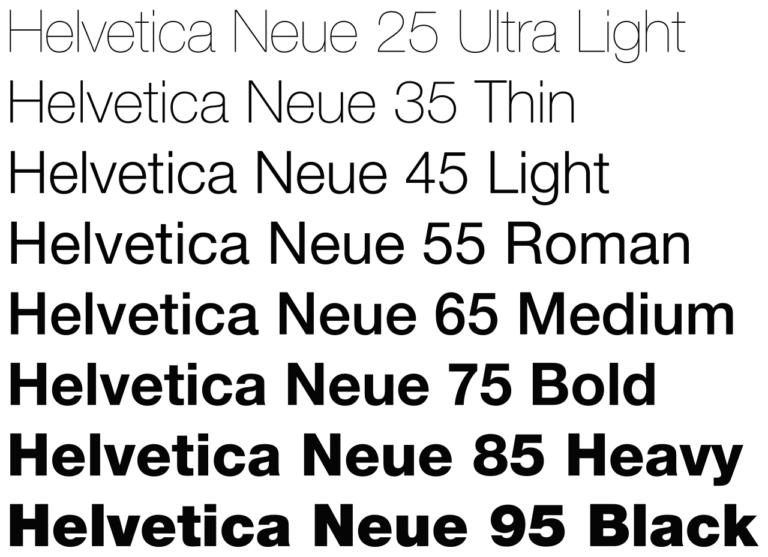
Helvetica Neue Font Family - Helvetica neue font family designed by unknown designer has a total of 16 different styles. Helvetica neue regular is the perfect font for all your fun designs. Helvetica font family created by kurt lorenz.
Helvetica neue font family designed by unknown designer has a total of 16 different styles. Helvetica font family created by kurt lorenz. Helvetica neue regular is the perfect font for all your fun designs.
Helvetica neue regular is the perfect font for all your fun designs. Helvetica neue font family designed by unknown designer has a total of 16 different styles. Helvetica font family created by kurt lorenz.
Helvetica font family created by kurt lorenz. Helvetica neue font family designed by unknown designer has a total of 16 different styles. Helvetica neue regular is the perfect font for all your fun designs.
Helvetica neue regular is the perfect font for all your fun designs. Helvetica font family created by kurt lorenz. Helvetica neue font family designed by unknown designer has a total of 16 different styles.
Helvetica font family created by kurt lorenz. Helvetica neue font family designed by unknown designer has a total of 16 different styles. Helvetica neue regular is the perfect font for all your fun designs.
Helvetica neue font family designed by unknown designer has a total of 16 different styles. Helvetica font family created by kurt lorenz. Helvetica neue regular is the perfect font for all your fun designs.
Helvetica font family created by kurt lorenz. Helvetica neue font family designed by unknown designer has a total of 16 different styles. Helvetica neue regular is the perfect font for all your fun designs.
Helvetica neue font family designed by unknown designer has a total of 16 different styles. Helvetica font family created by kurt lorenz. Helvetica neue regular is the perfect font for all your fun designs.
Helvetica neue font family designed by unknown designer has a total of 16 different styles. Helvetica neue regular is the perfect font for all your fun designs. Helvetica font family created by kurt lorenz.
Helvetica font family created by kurt lorenz. Helvetica neue font family designed by unknown designer has a total of 16 different styles. Helvetica neue regular is the perfect font for all your fun designs.
Helvetica Neue Font Family Designed By Unknown Designer Has A Total Of 16 Different Styles.
Helvetica font family created by kurt lorenz. Helvetica neue regular is the perfect font for all your fun designs.